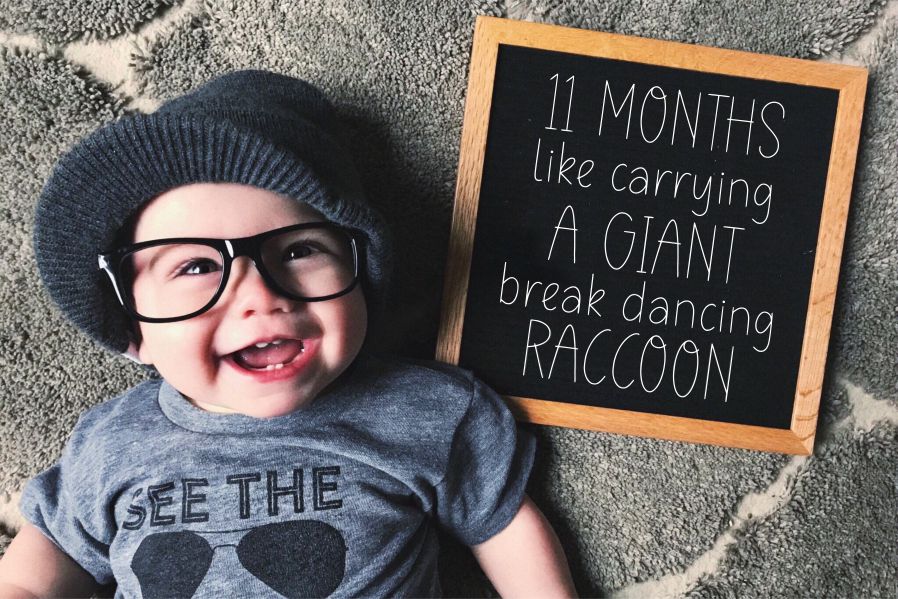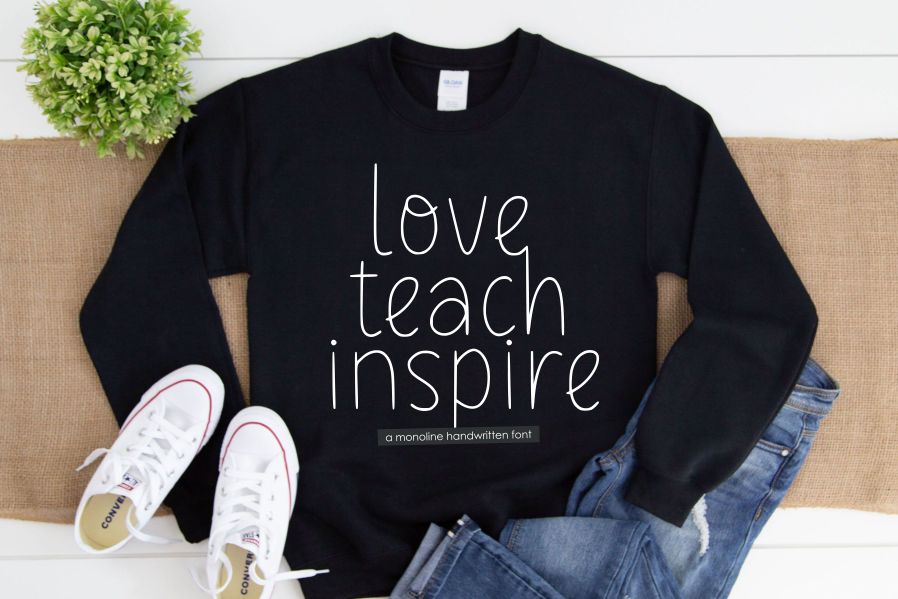
Nervesline Font
Nervesline Display Font
It’s A Monoline Handwritten Font. Nervesline is perfect for product packaging, branding project, megazine, social media, wedding, or just used to express words above the background. This font includes OTF&TTF&Woff, Nervesline also multilingual support.